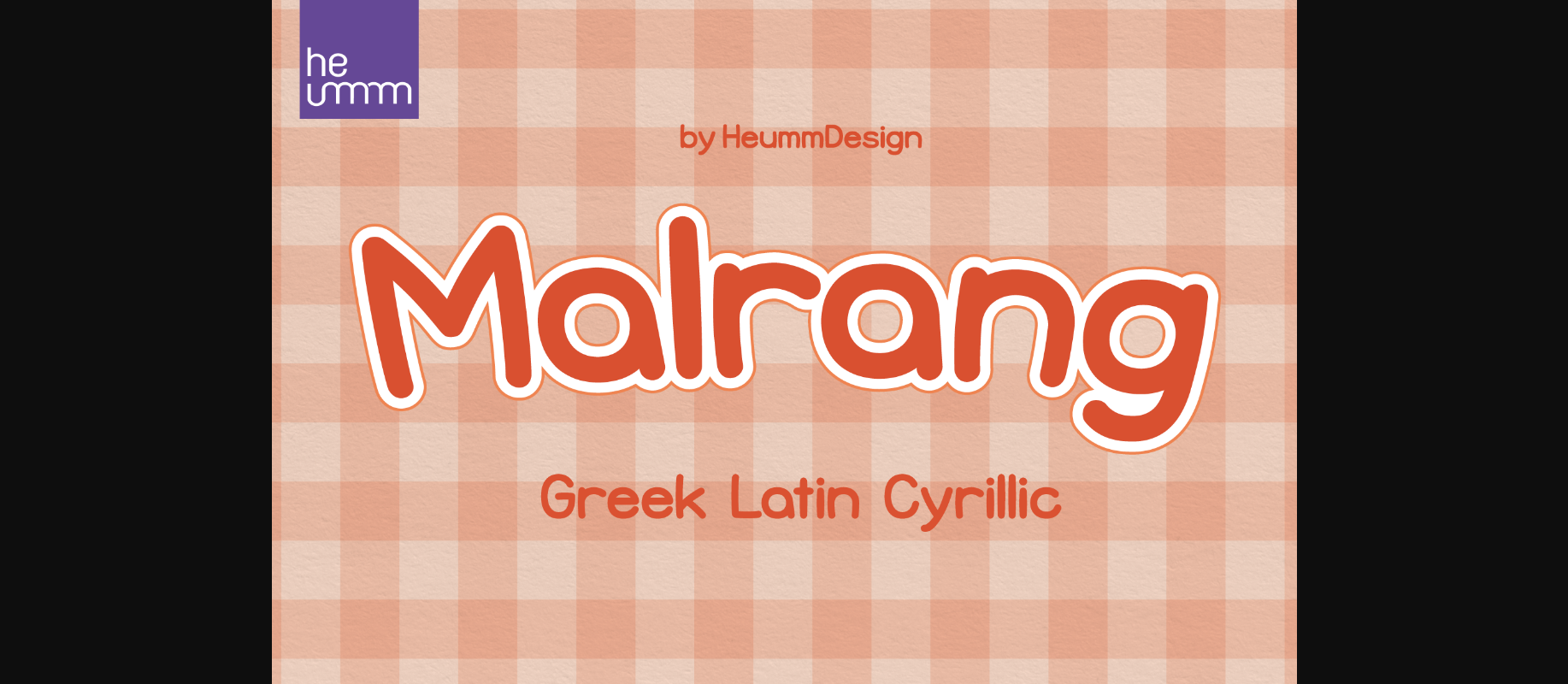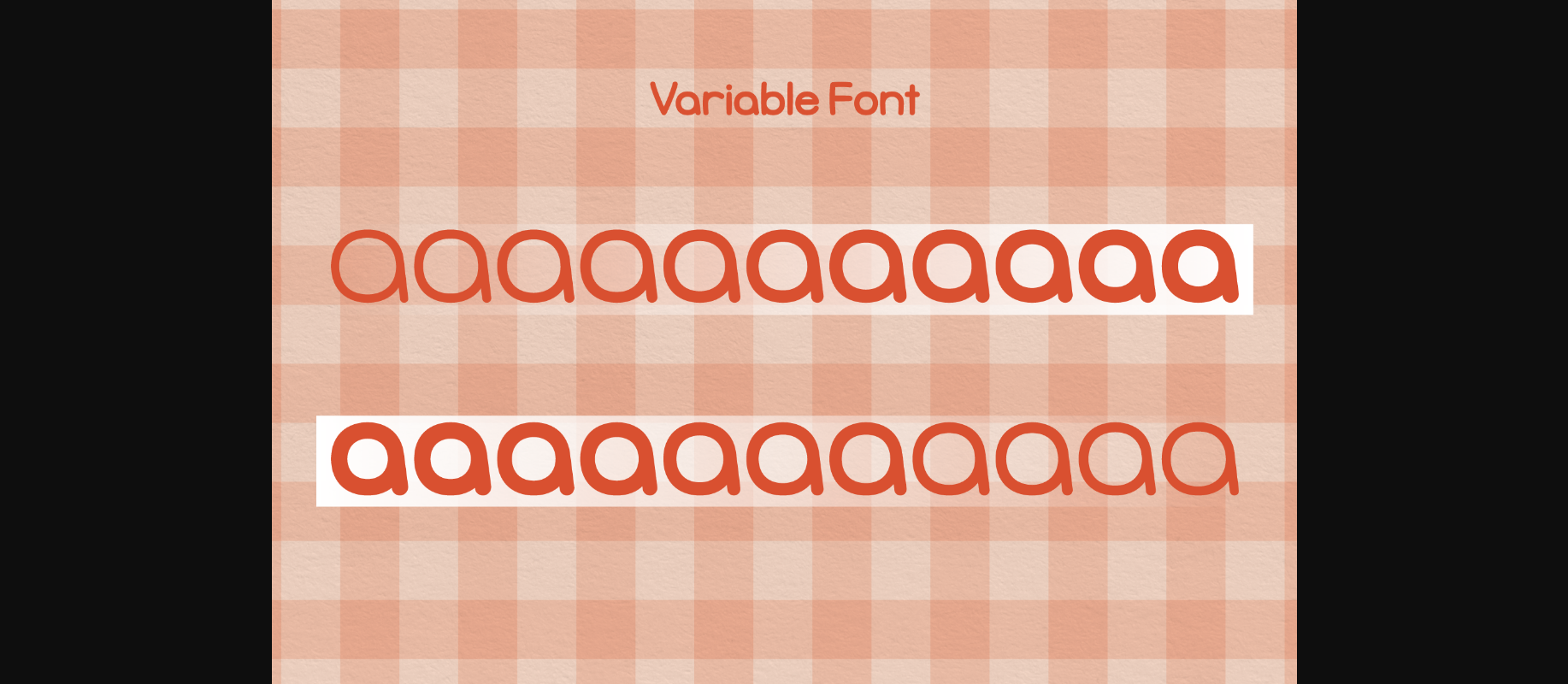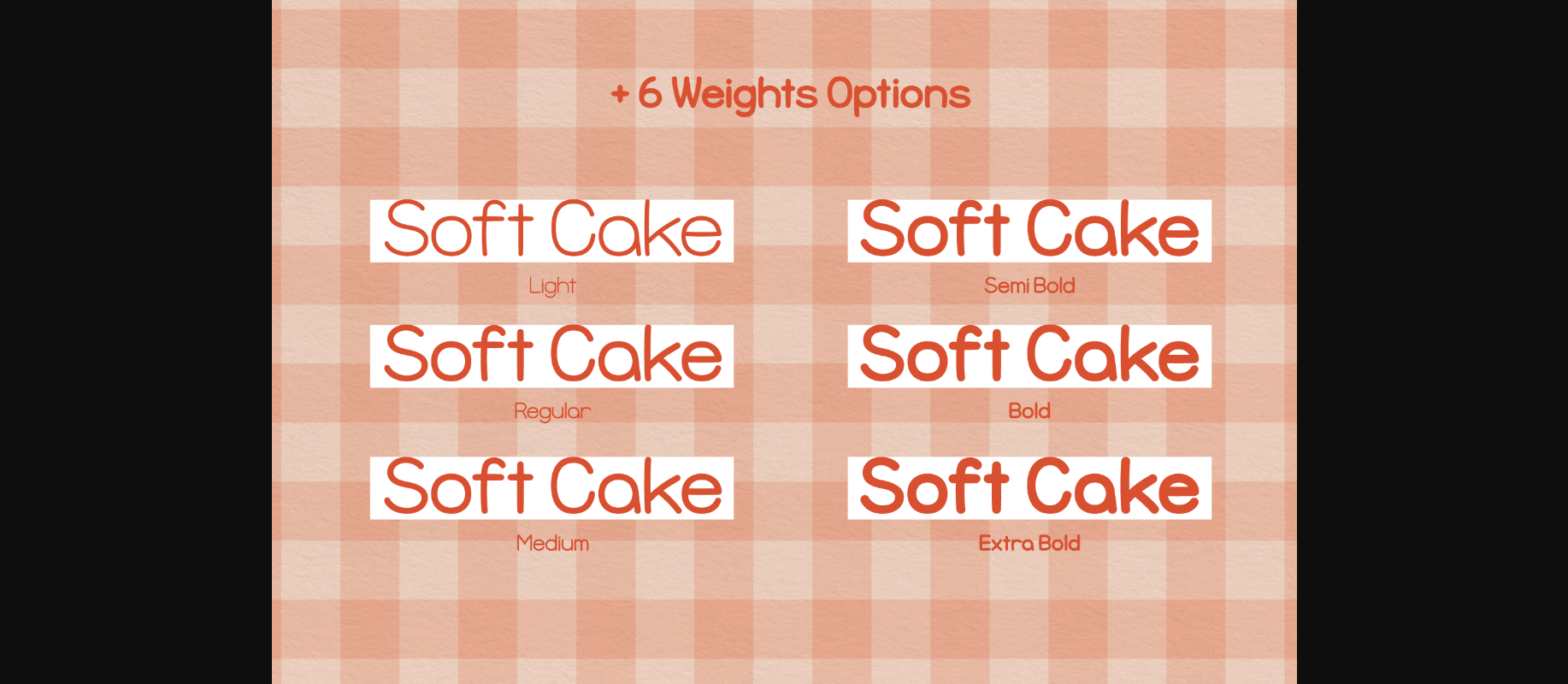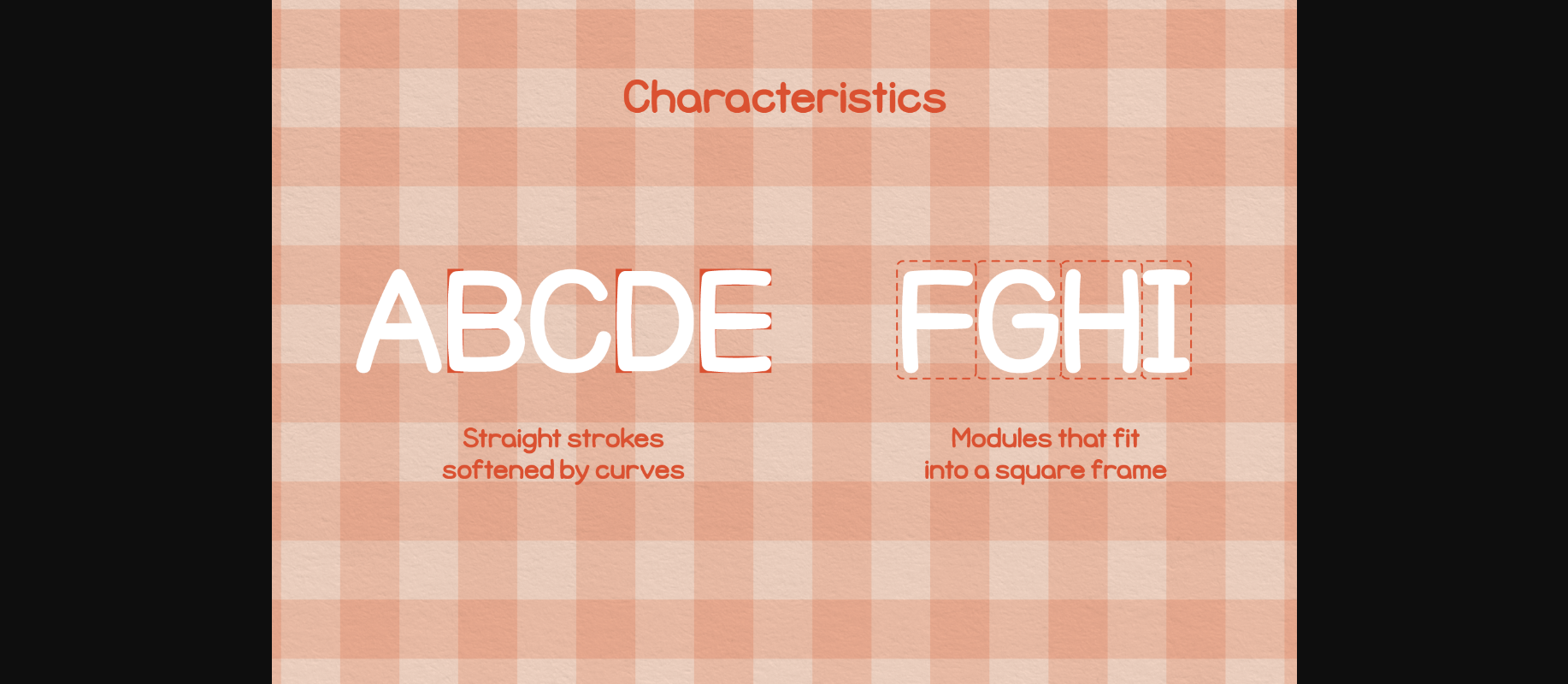
About Malrang Font
Malrang is a font that gives a round and soft feel to its tightly packed modules. This font has a variable function, allowing users to fine-tune the thickness they want. (Available only in Adobe programs.) Six basic weights are provided so that they can be used even in programs that do not apply the variable function.